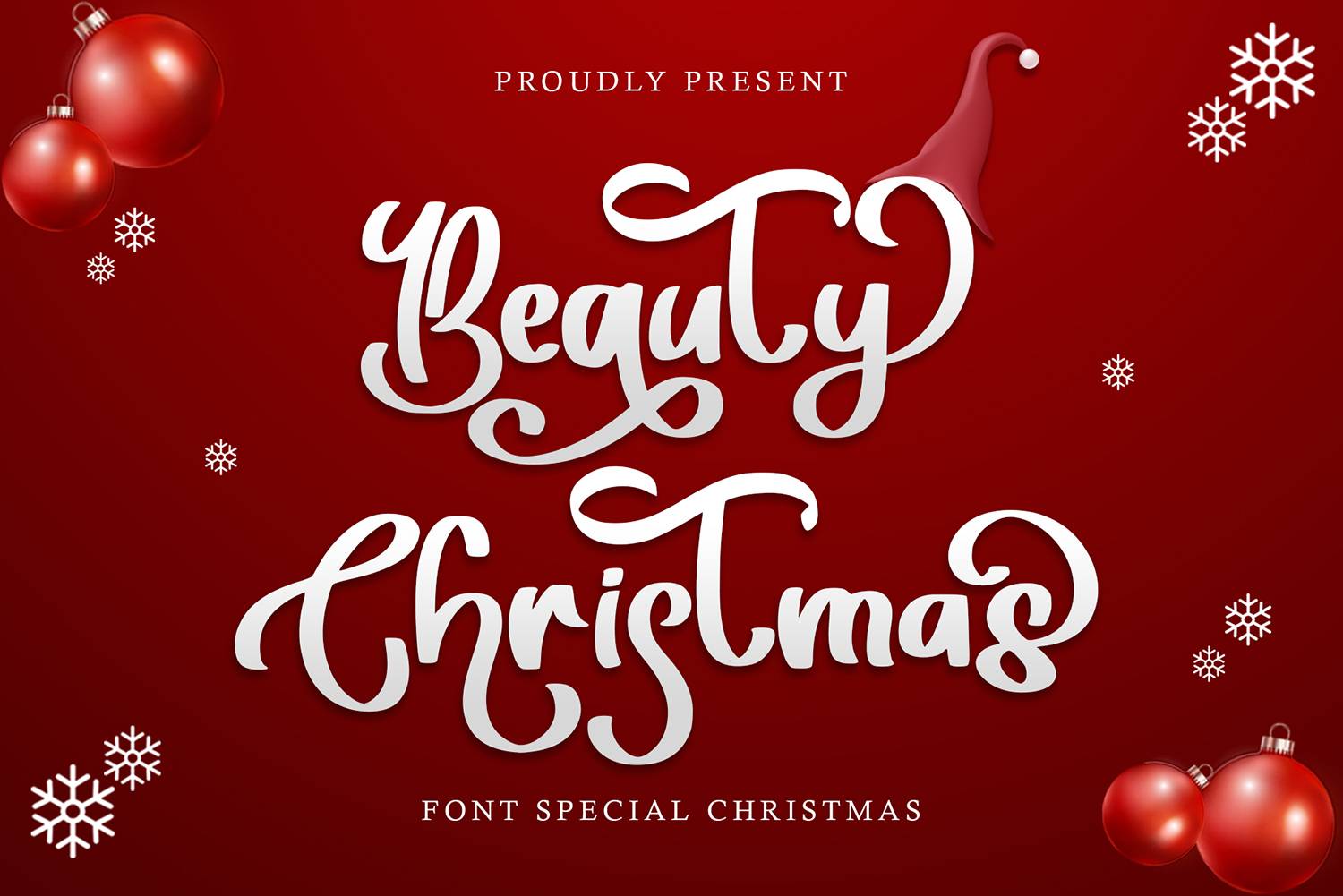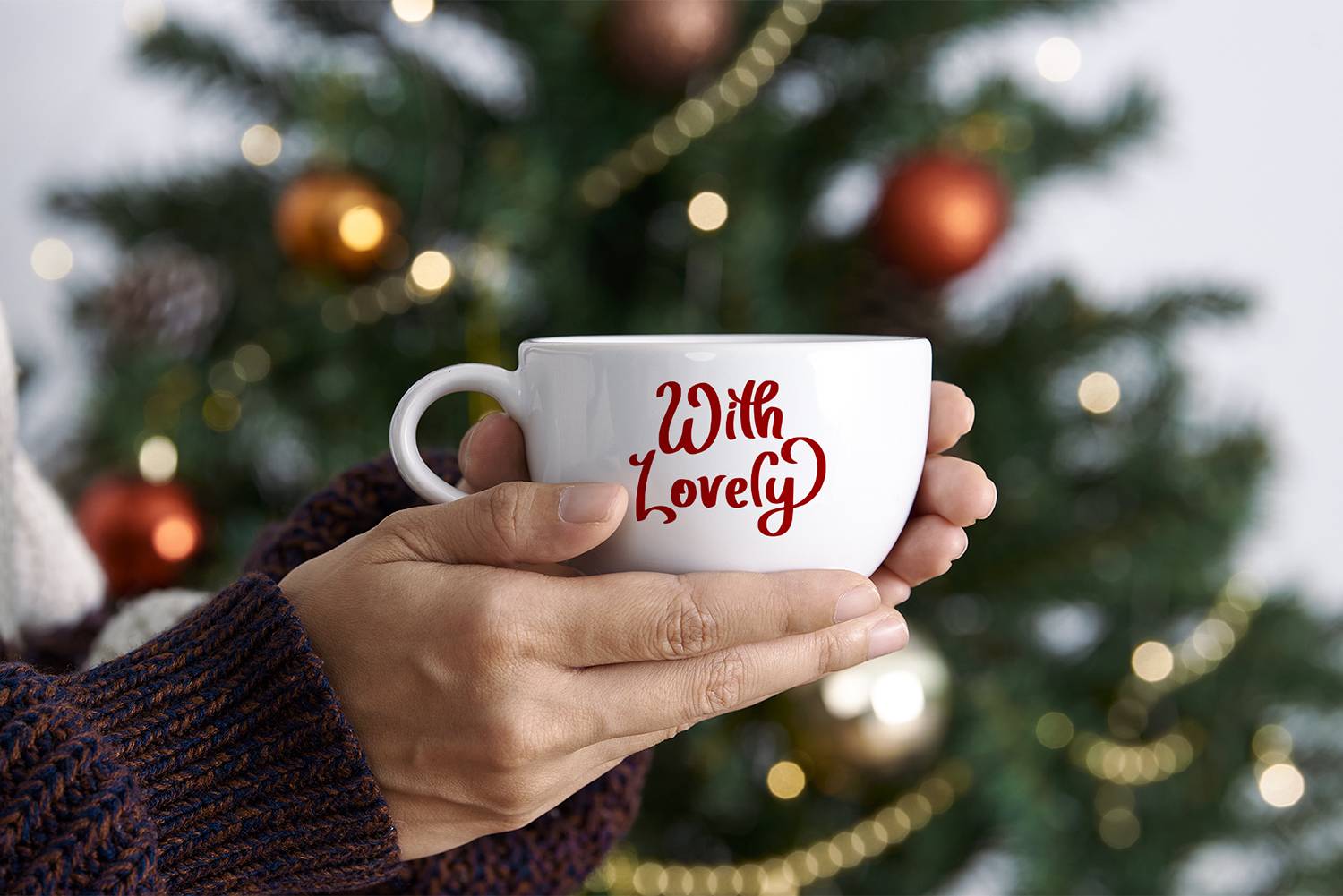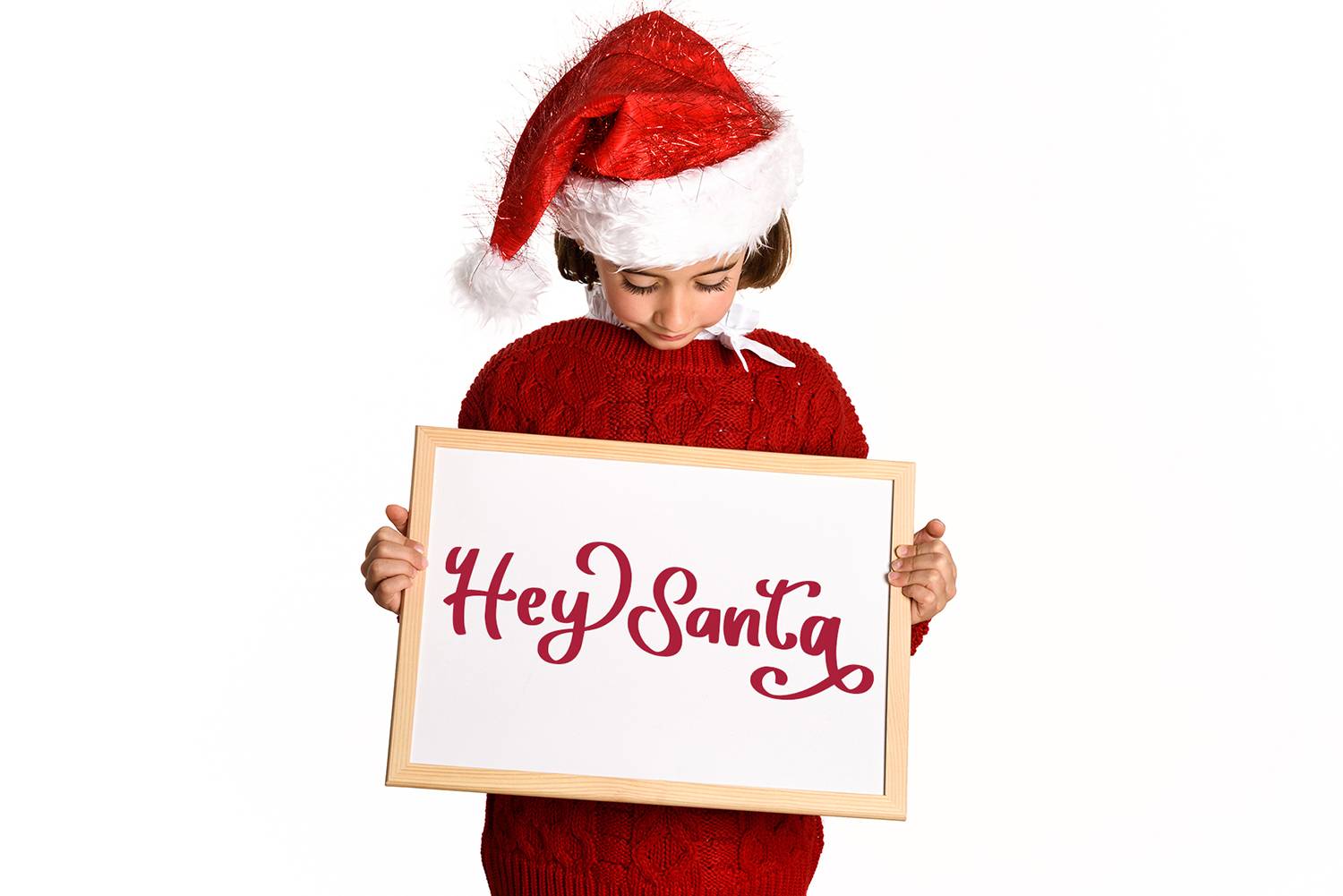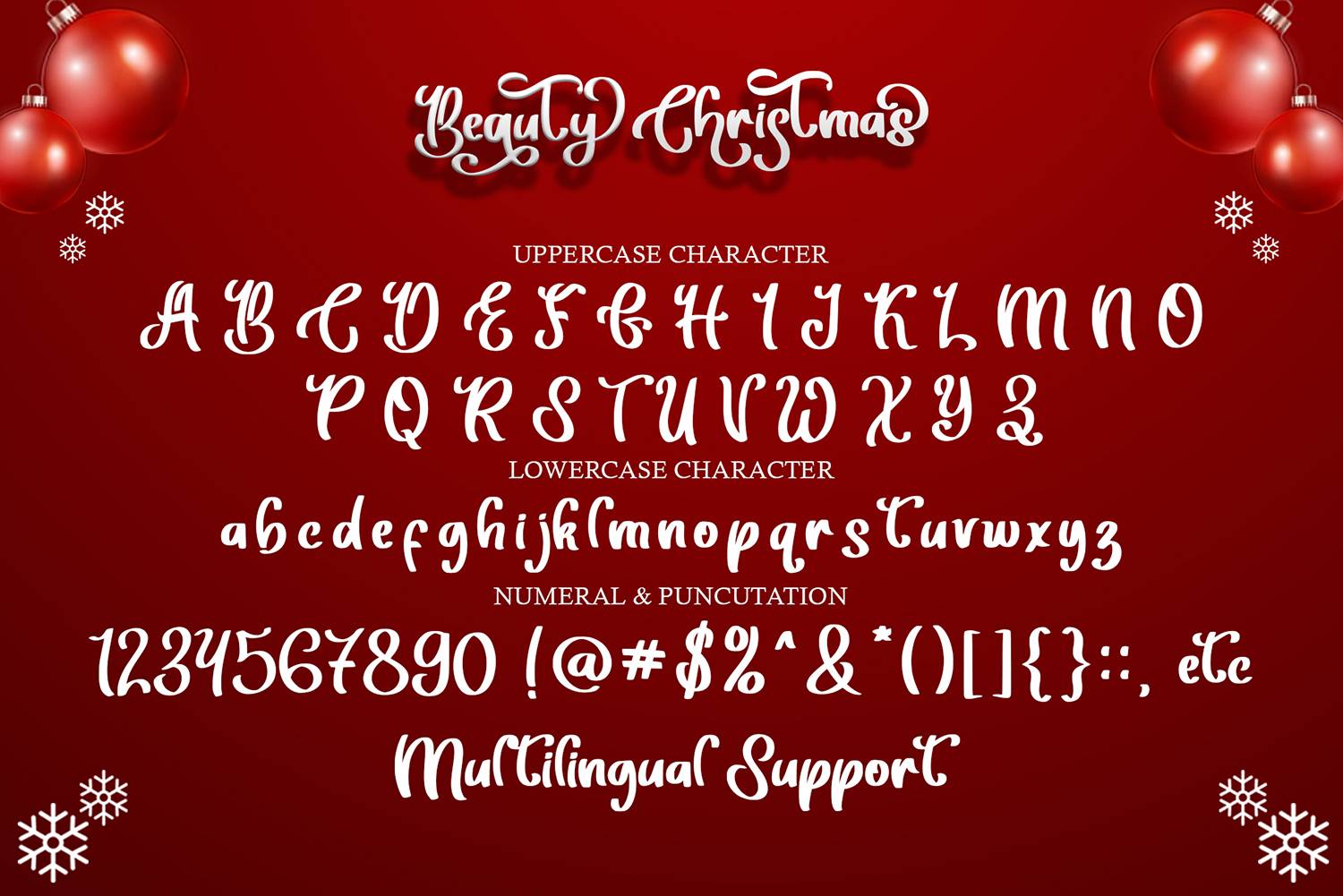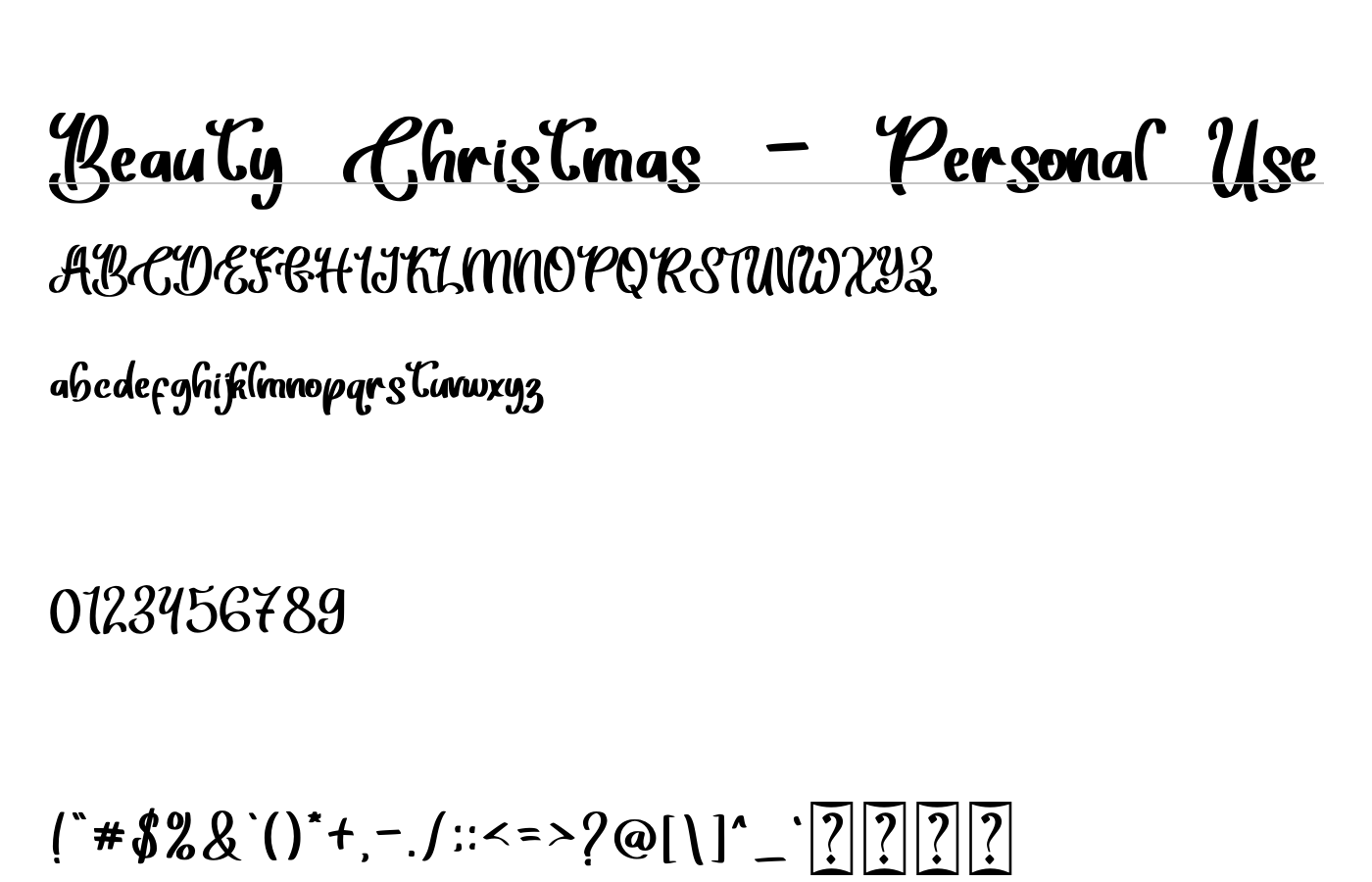
Beauty Christmas Font is a playful and decorative script font with a casual yet charming feel, featuring smooth, rounded strokes and lively, slightly irregular letterforms. Its medium weight and moderate contrast give it a friendly, handcrafted personality perfect for festive, joyful designs such as holiday cards, party invitations, and seasonal branding. This font works best when used for headlines or short text where its unique style can stand out and add a warm, celebratory touch.
Beauty Christmas Font